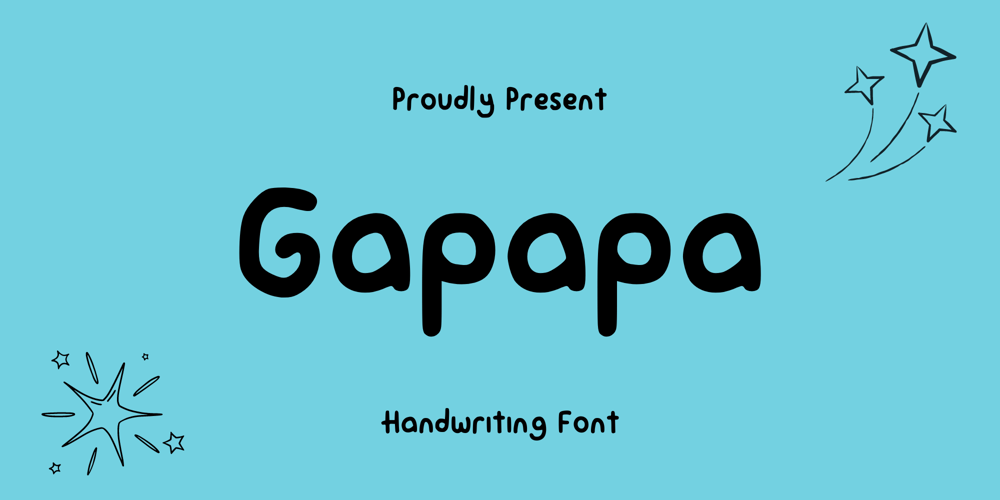
Gapapa
Gapapa font
Gapapa Font Family was designed by published by Sidkia Fonts. Gapapa contains 1 styles and family package options. Gapapa font is a cute and simple regular handwriting font. Whether you’re looking for fonts for Instagram or calligraphy scripts for DIY projects, this font will turn any creative idea into a true piece of art!